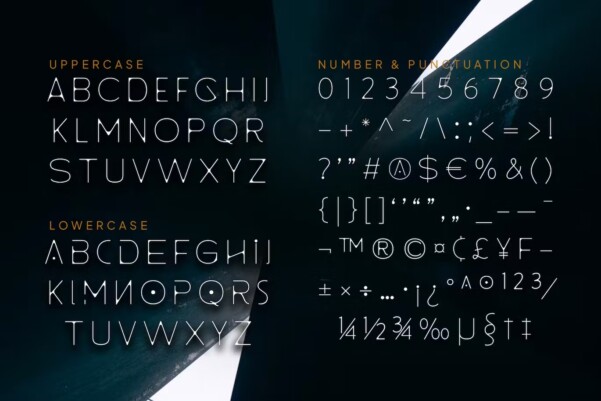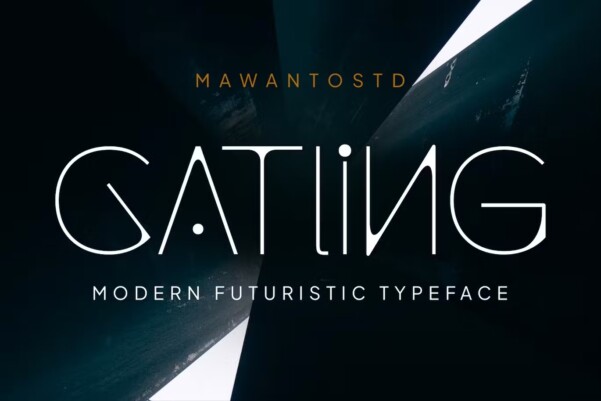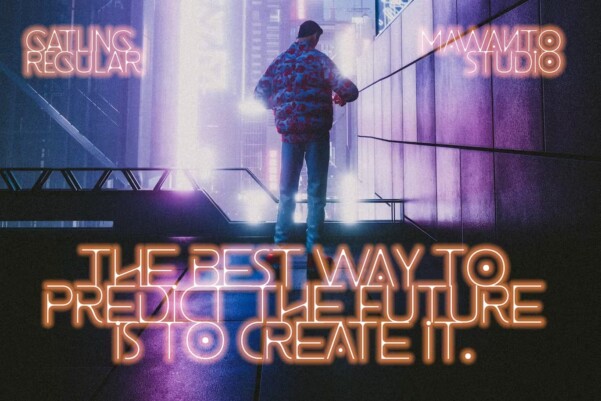
Gatling Font
Gatling Font is modern futuristic typeface font. It looks stunning on wedding invitations, thank you cards, quotes, greeting cards, logos, business cards, and every other design which needs a classy touch. you can access all of the glyphs and ligatures with ease!